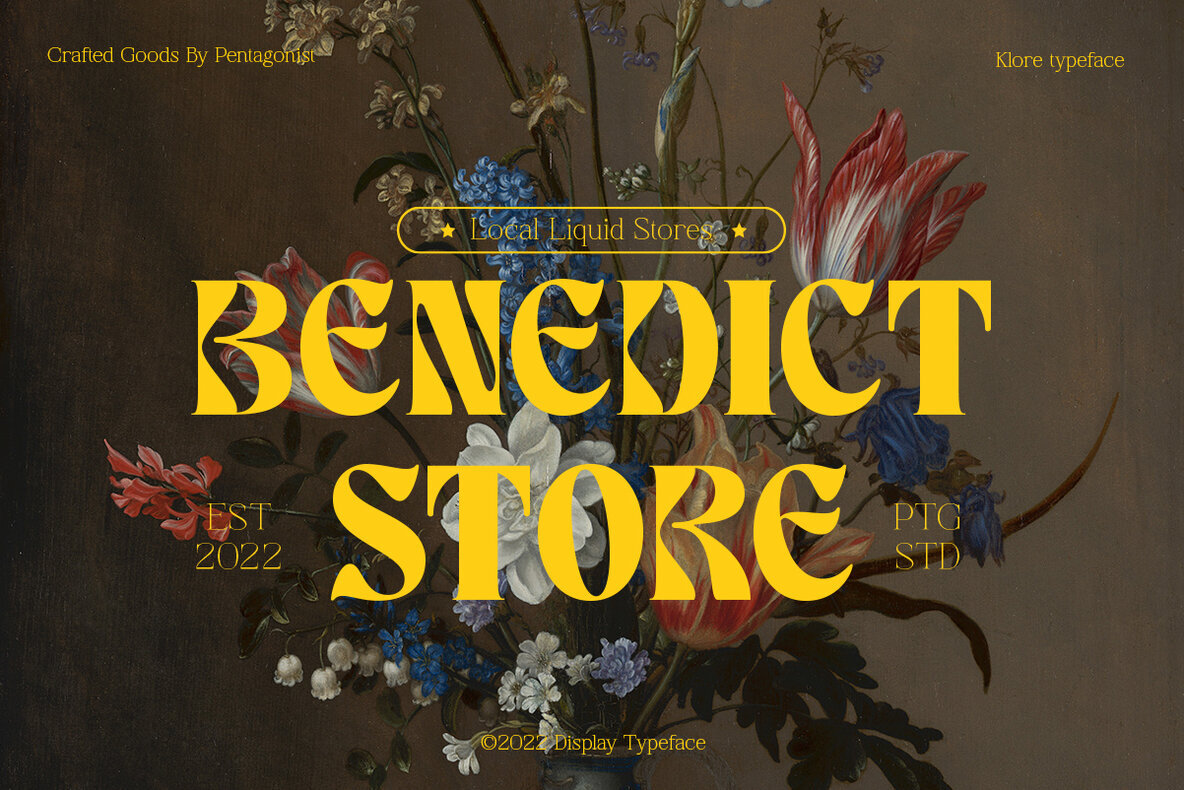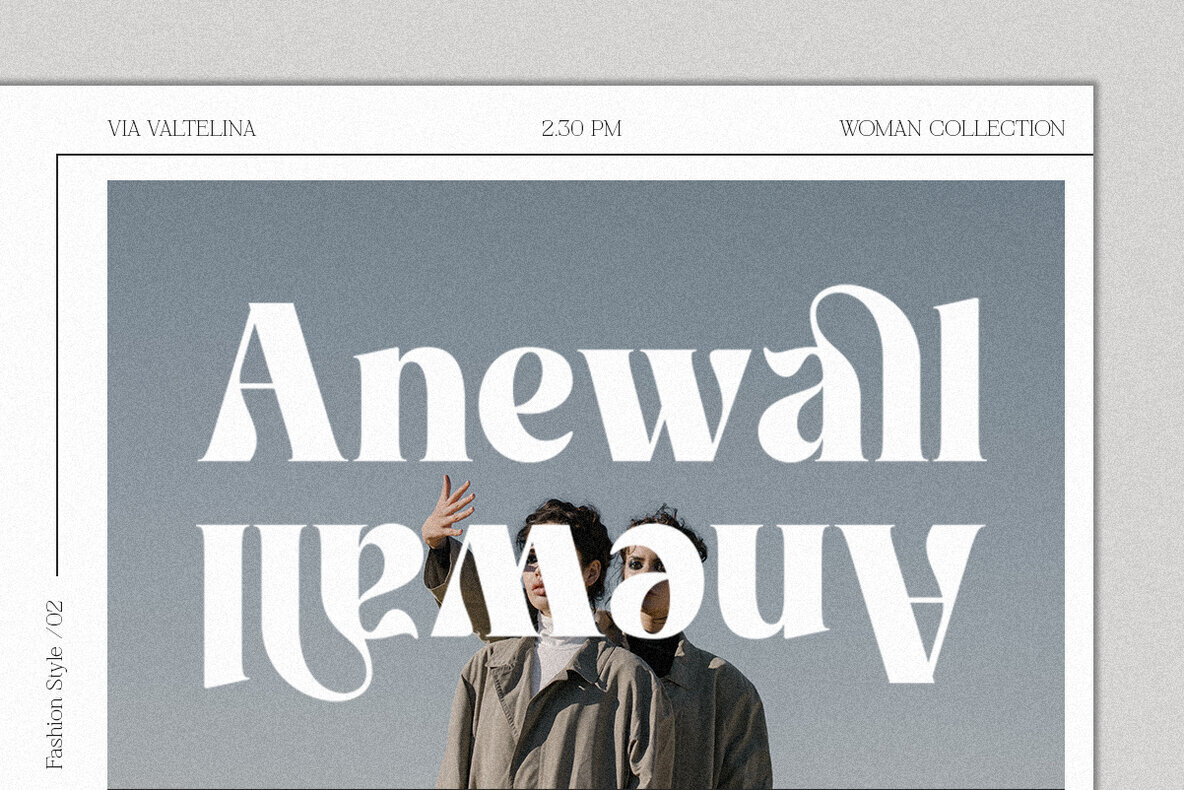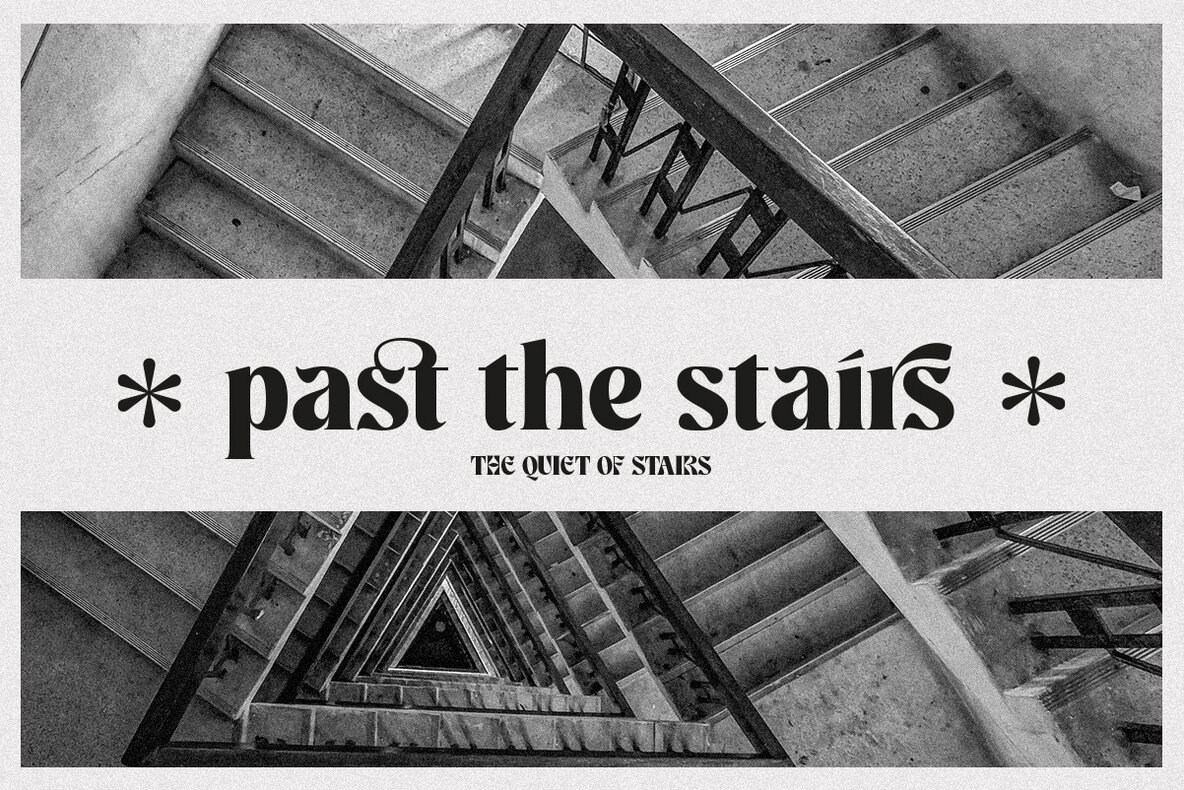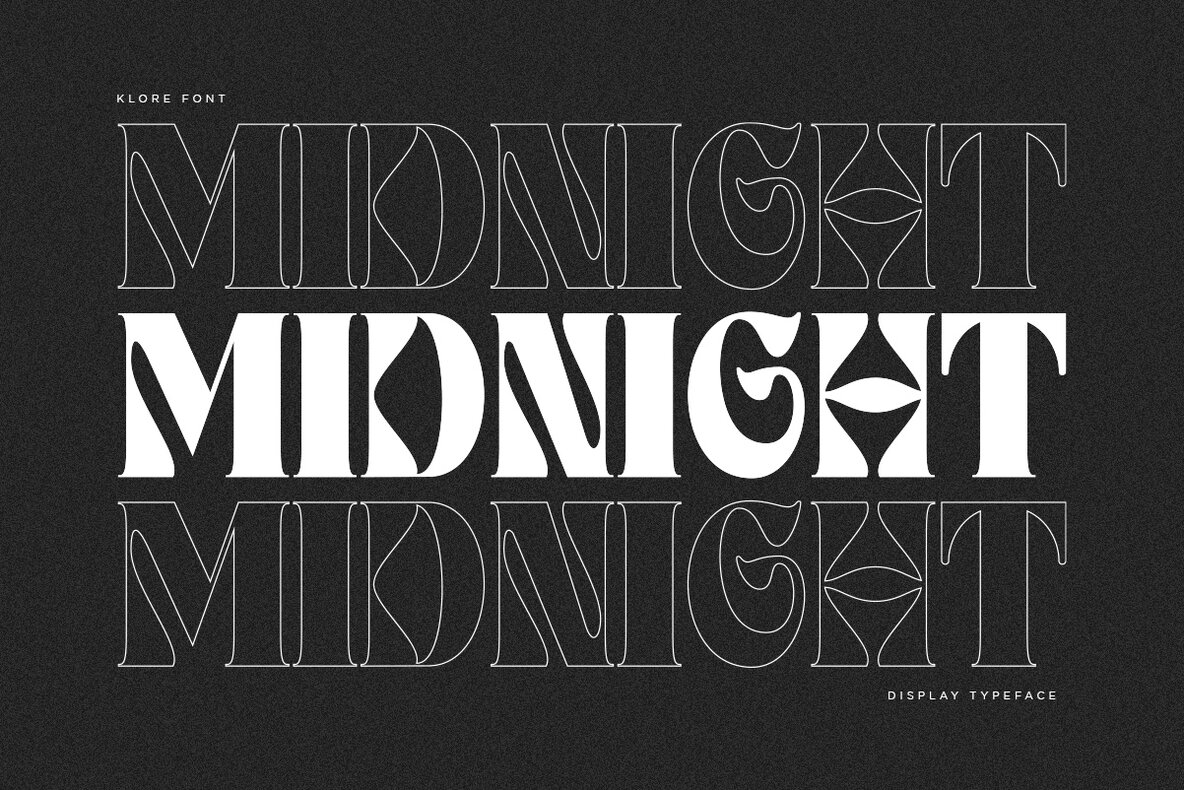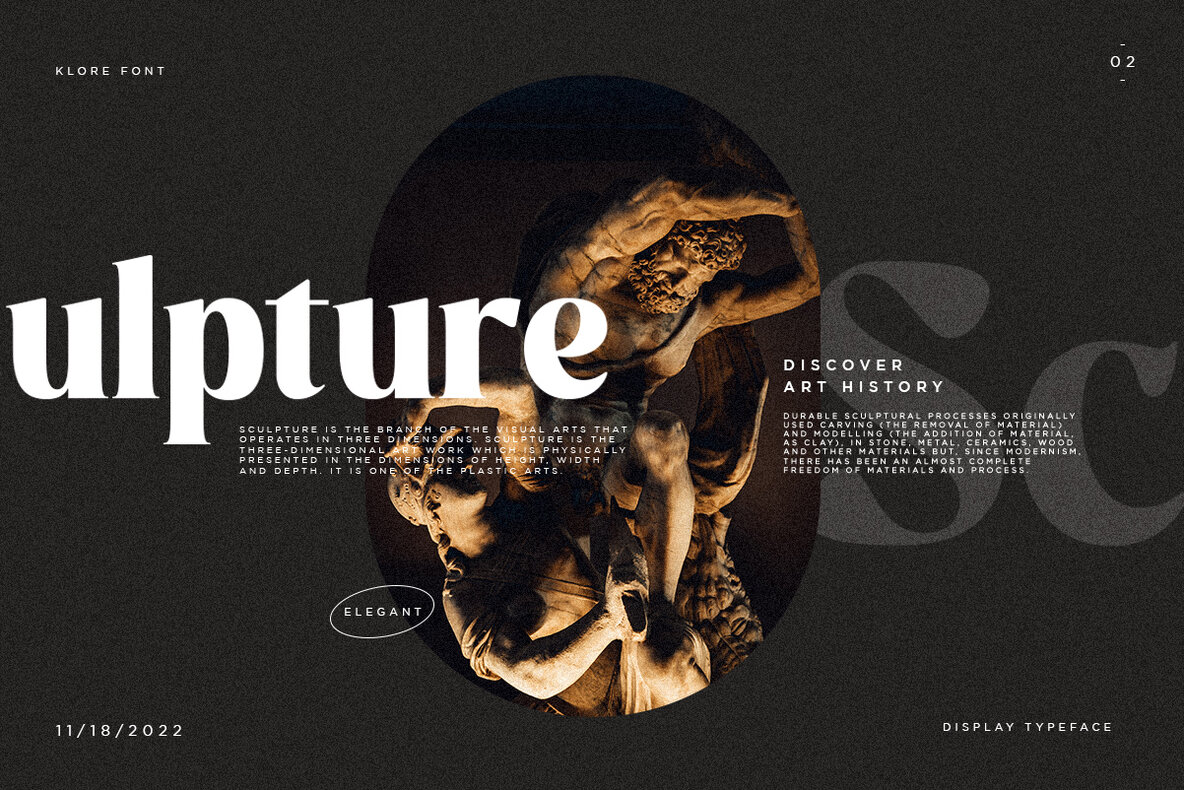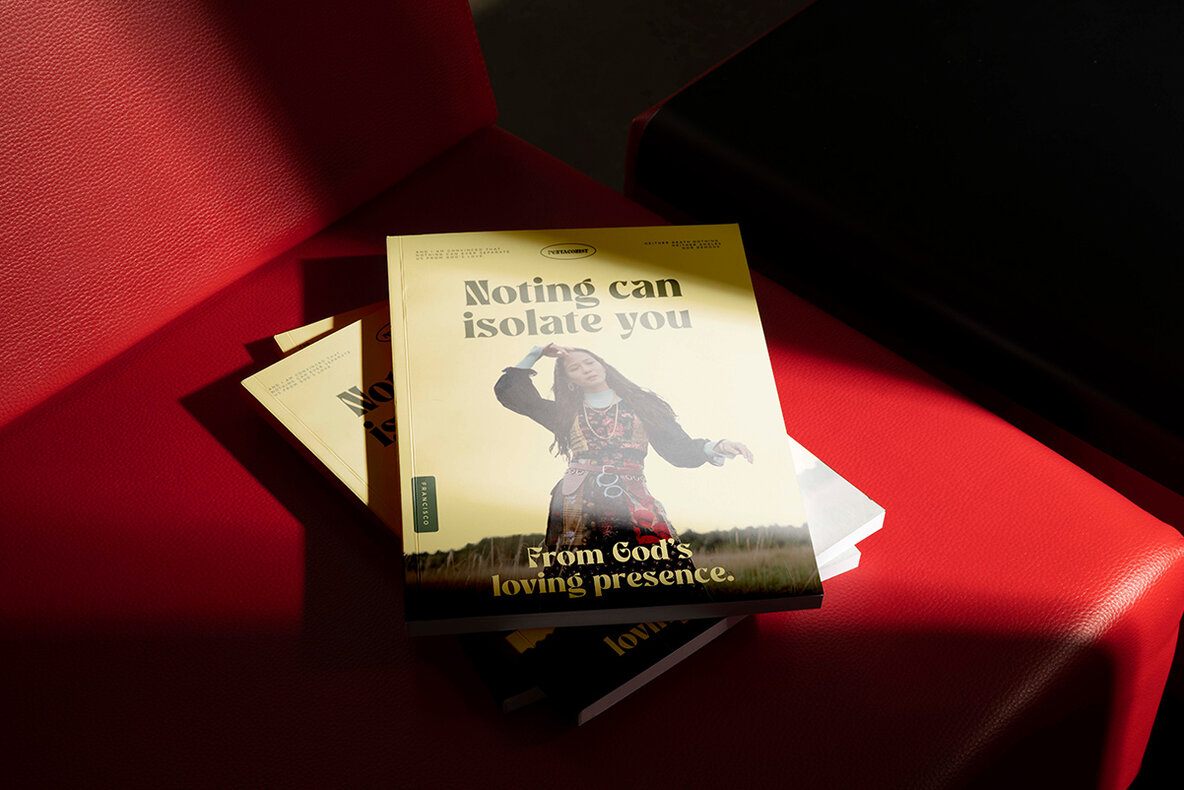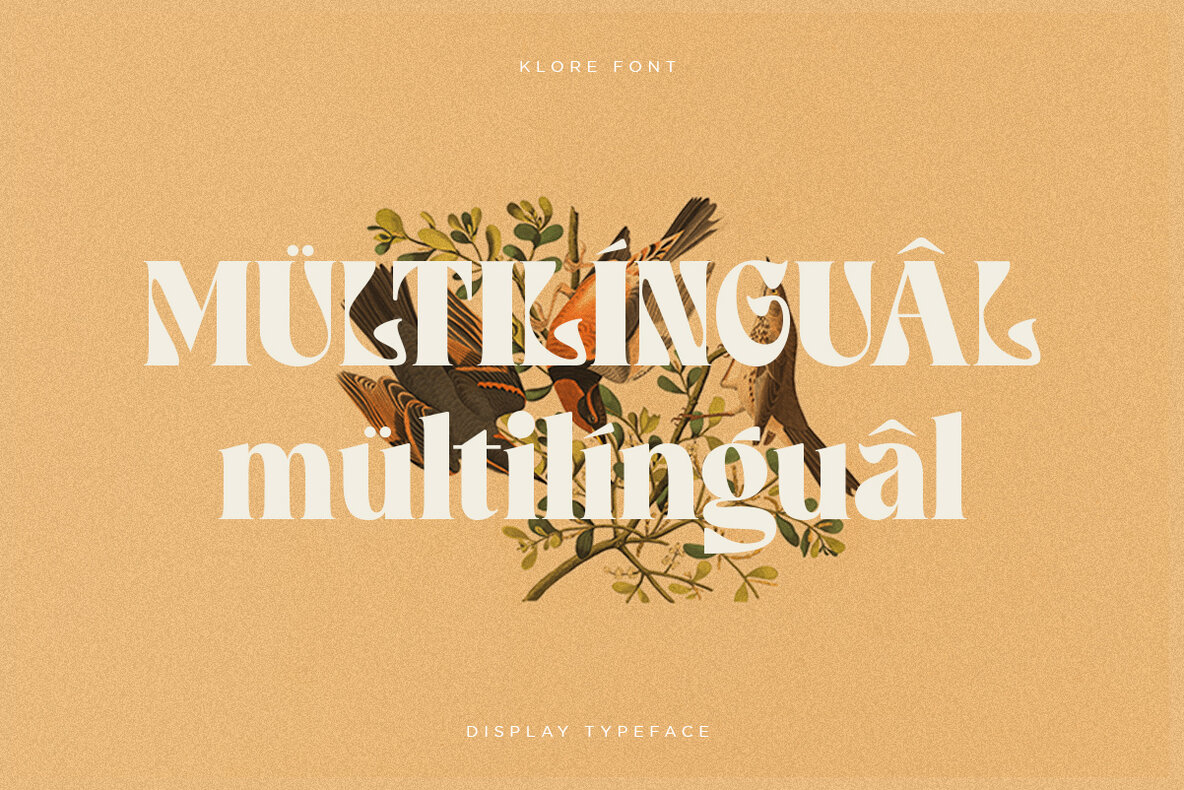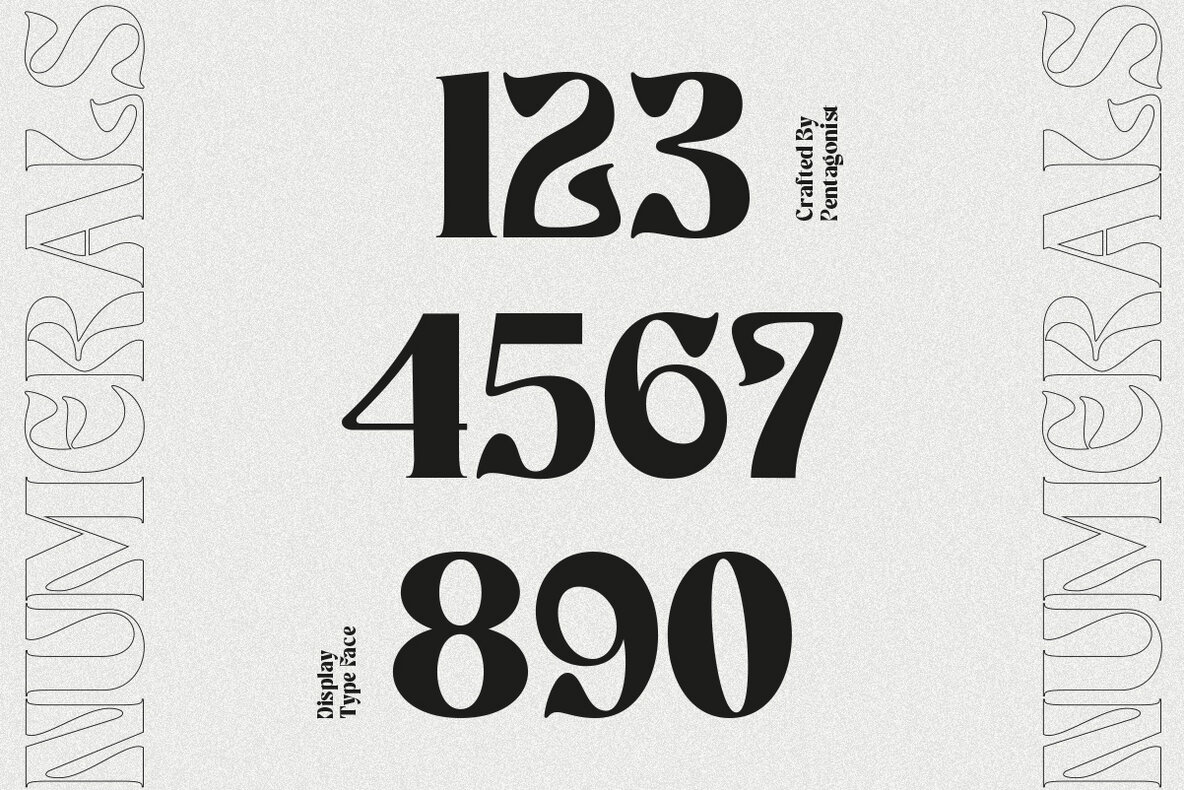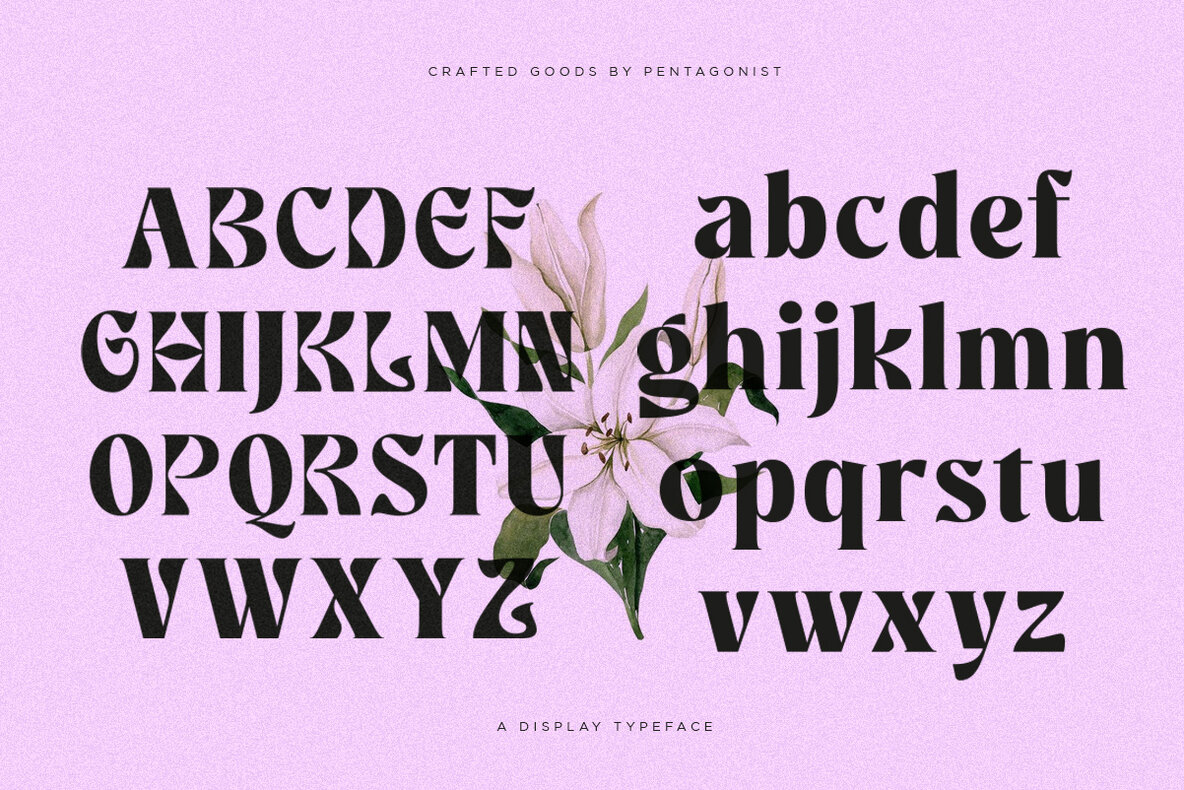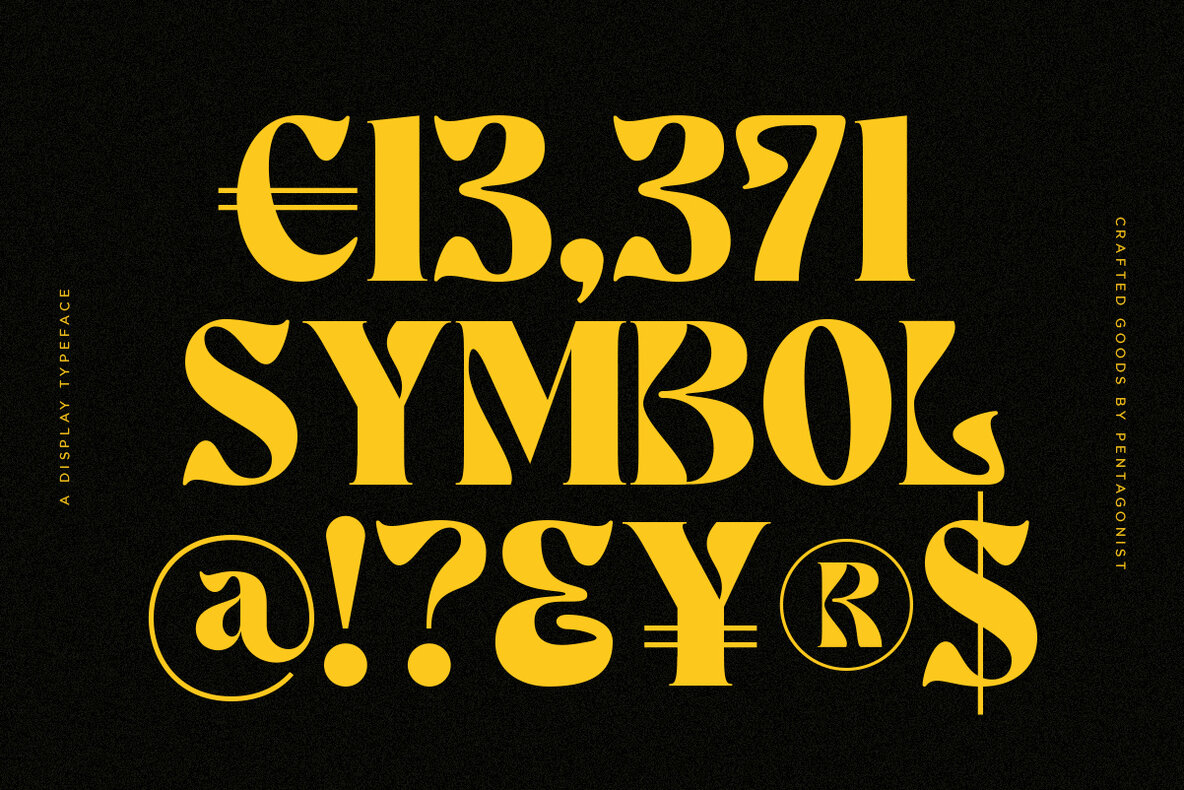
Klore Font
KLORE Regular
Klore by Pentagonistudio brings a nostalgic touch to your designs with its vintage display characters inspired by retro aesthetics. Ideal for graphic designers seeking a classic yet timeless font, Klore serves well in diverse projects looking for a touch of the past. Features: Klore is available with a desktop license allowing installation on 1 user and 2 computers. Note that it may not be used for broadcast, cinema, motion picture, or in templates for sale. Contact the designer for other licensing needs or to embed in applications.Klore: Vintage Display Typeface with Retro Charm